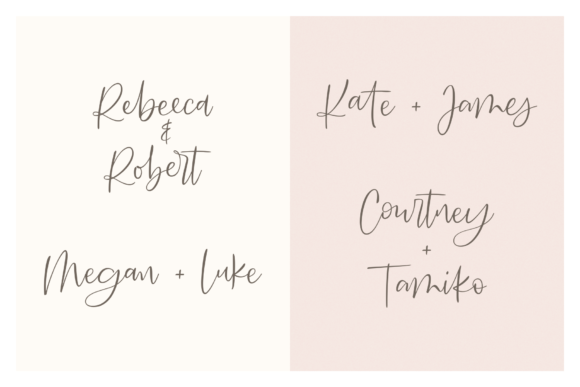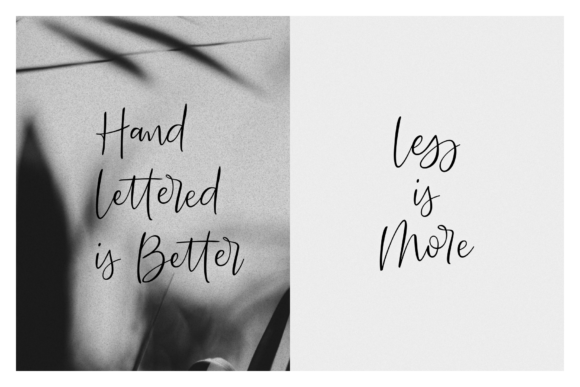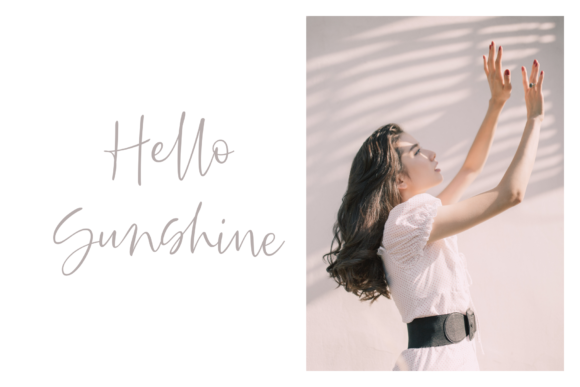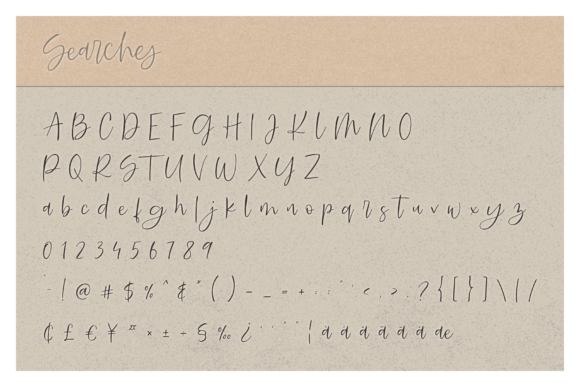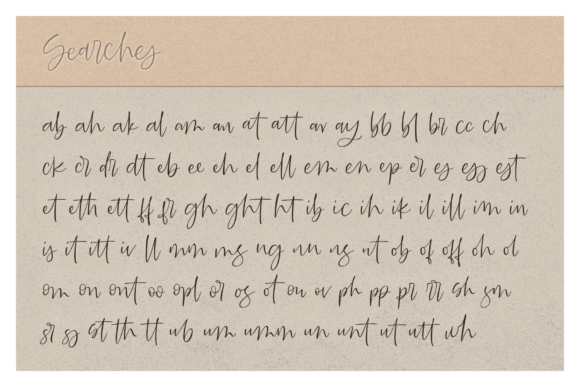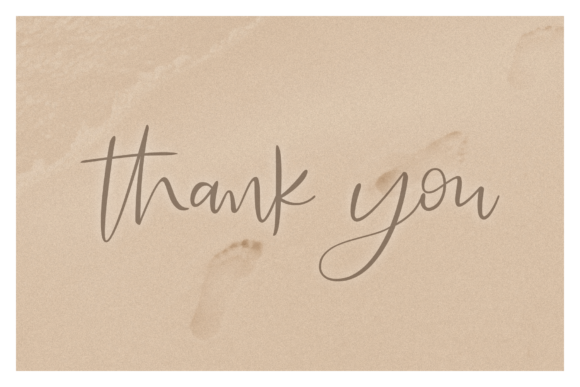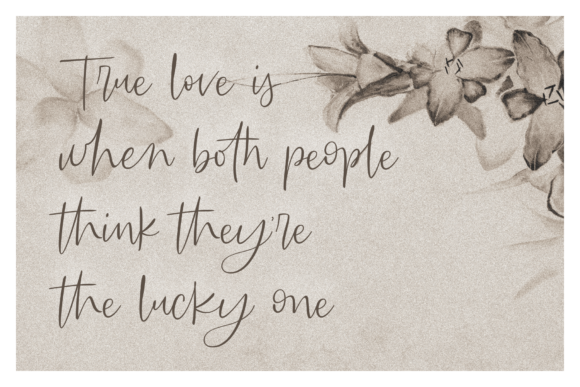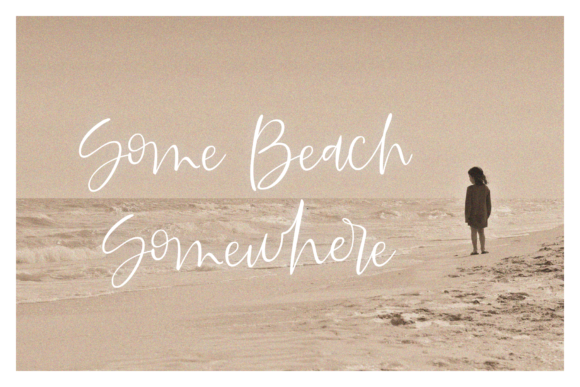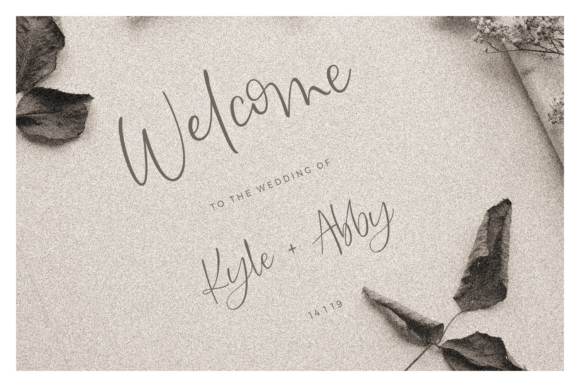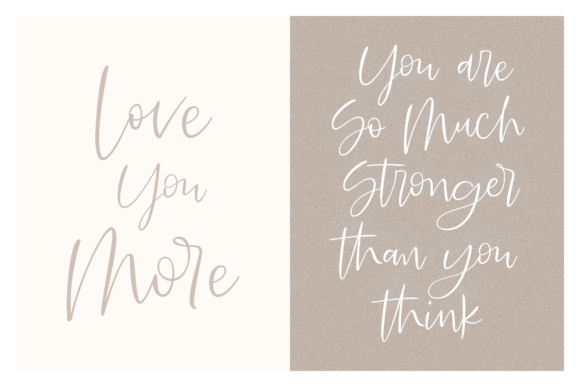
HomeScript FontsSearches Font Script Fonts Searches Font FacebookXPinterestWhatsApp Searches Font Poster 2 Searches Font Poster 3 Searches Font Poster 4 Searches Font Poster 5 Searches Font Poster 6 Searches Font Poster 7 Searches Font Poster 8 Searches Font Poster 9 Searches Font Poster 10 Searches Font Poster 11 Searches Font Poster 12 Searches Font Poster 13 Searches Font Poster 14 Searches Font Poster 15 About Searches Font The Searches is a bold and messy script font. It has lovely movements which give it a fun and elegant feel. DOWNLOAD ON CREATIVE FABRICAThis font is sold and delivered by Creative Fabrica. Font Canyon may earn a commission if you buy through this link. People also explored Legacy Font The Shady Frog Font Lemon Splash Font Goldstep Font Winter Festival Font Blome Font Advanced Font Bobcat Font MFC Tattersaw Monogram 328 0 TagsSearches Font Previous articleMessy Nessy Duo FontNext articleBarbies Script Font LEAVE A REPLY Cancel reply Comment: Please enter your comment! Name:* Please enter your name here Email:* You have entered an incorrect email address! Please enter your email address here Website: Save my name, email, and website in this browser for the next time I comment. Personal Use Free Rozalyn Personal Use Free Read more about this font Creativo Personal Use Free Read more about this font Fat Max Personal Use Free Read more about this font Hello Sister Personal Use Free Read more about this font BLOG Free vs Paid Fonts: Why Investing in Premium Fonts Is Worth It Free vs Paid Fonts: Why Premium Fonts Are Worth It in 2025 The debate of free vs paid fonts continues in the design world. While... Where to Buy American Fonts Online in 2024 5 Fonts That Will Dominate Design Trends in 2026 Using Fonts in Digital Marketing: Tips to Strengthen Your Brand Identity